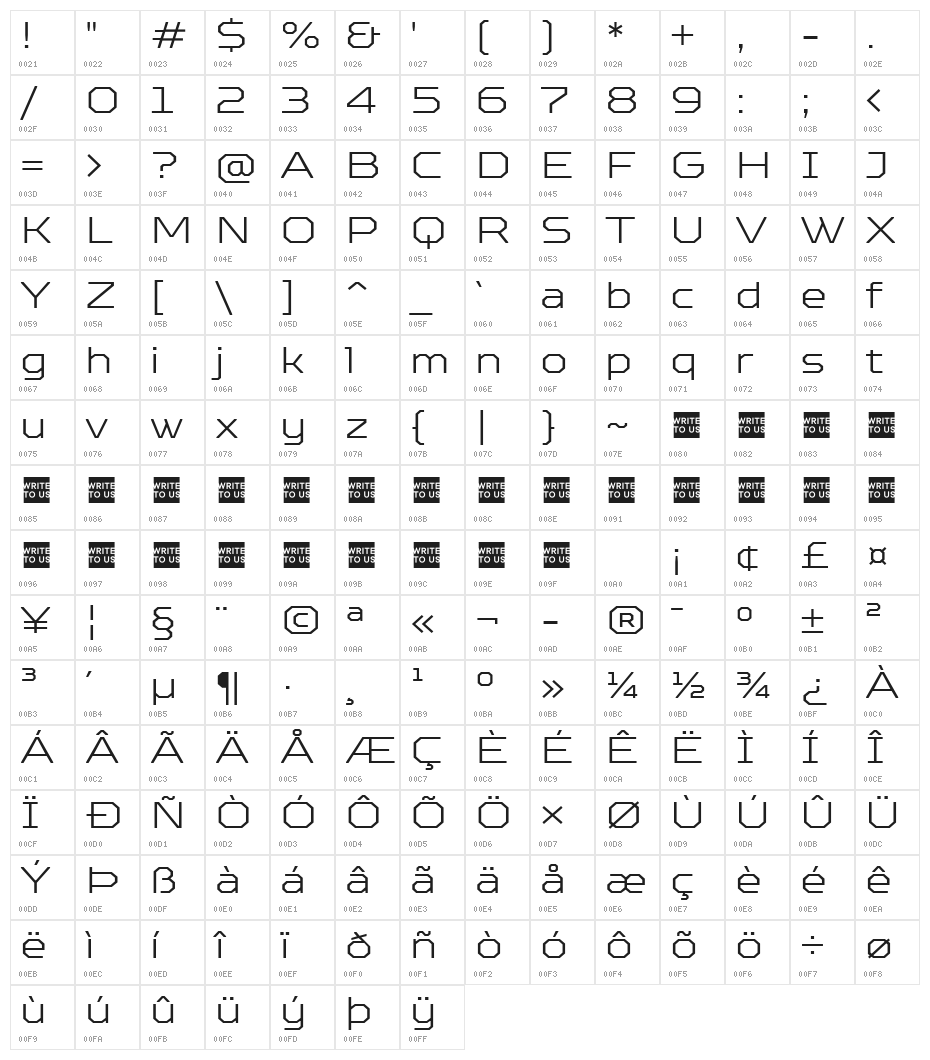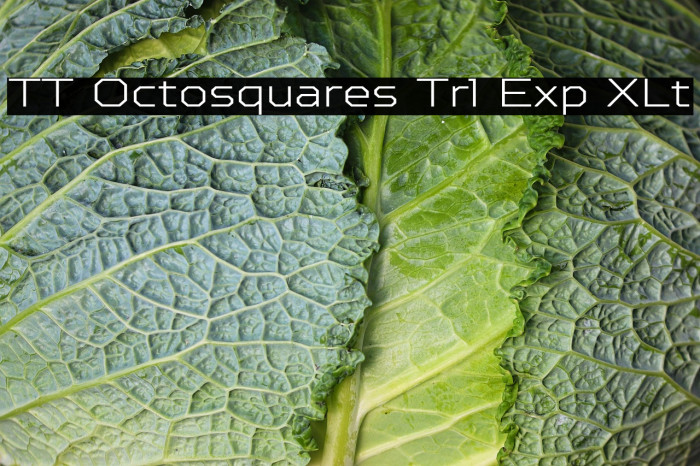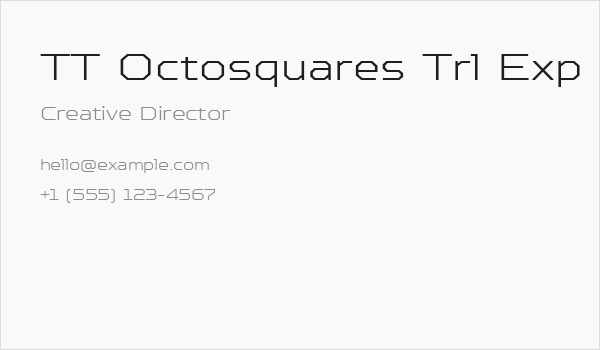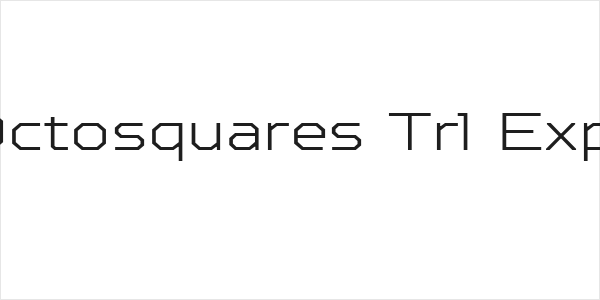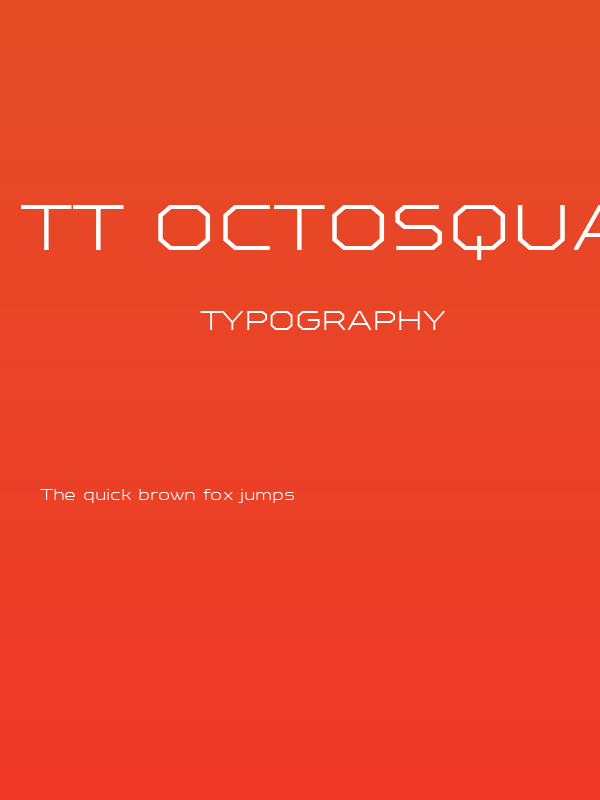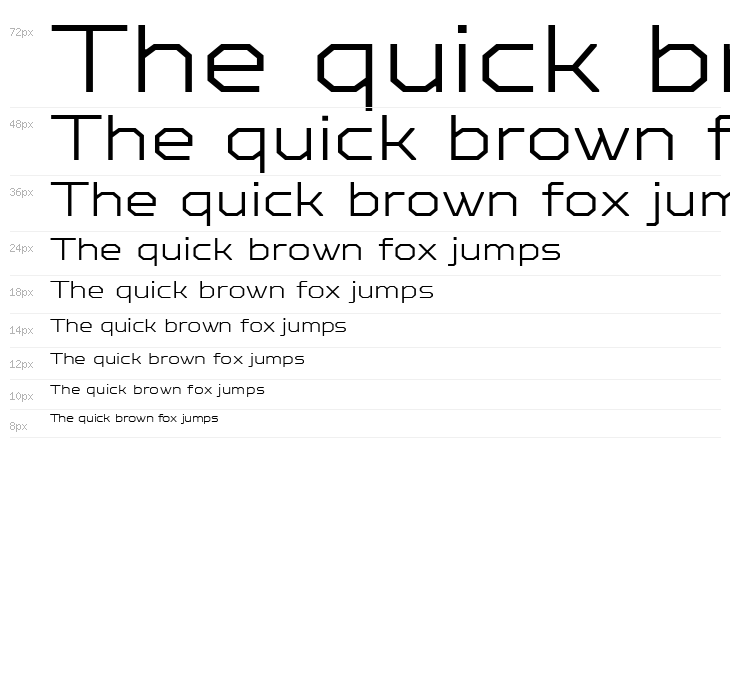
TT Octosquares Trl Exp XLt Font
TT Octosquares Trl Exp XLt Description
This font features a geometric and futuristic design, characterized by its octagonal shapes and clean lines. The uppercase and lowercase letters maintain a consistent structure, with sharp angles and a uniform stroke width that gives it a modern and technical appearance. The numerals and special characters follow the same design principles, ensuring a cohesive look across all glyphs. The font's unique style makes it stand out, while its readability remains intact due to the clear distinction between characters.
| Use Case | Logos, Headlines, Digital Interfaces |
| Proposed Projects | Ideal for technology branding, sci-fi themed projects, digital interfaces, and modern graphic design. |